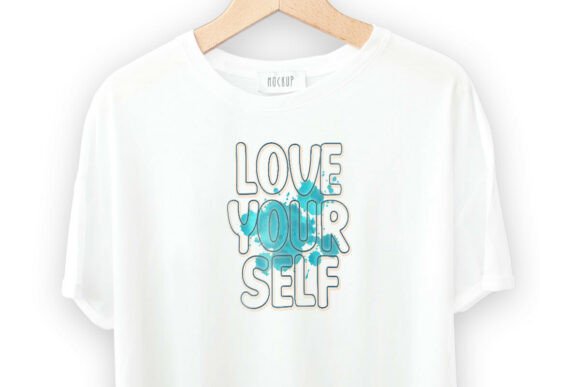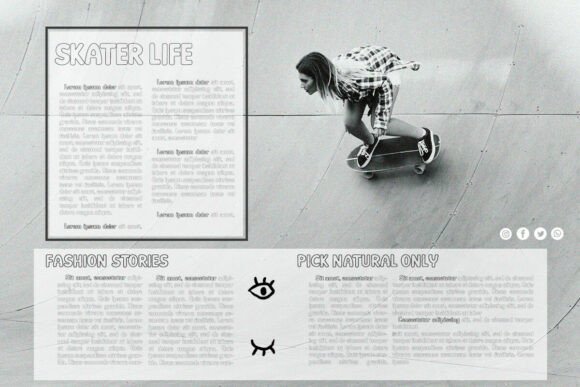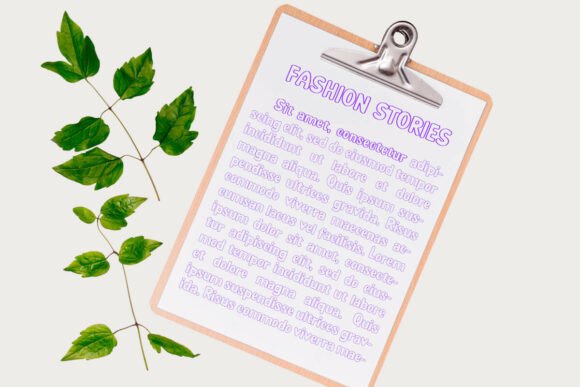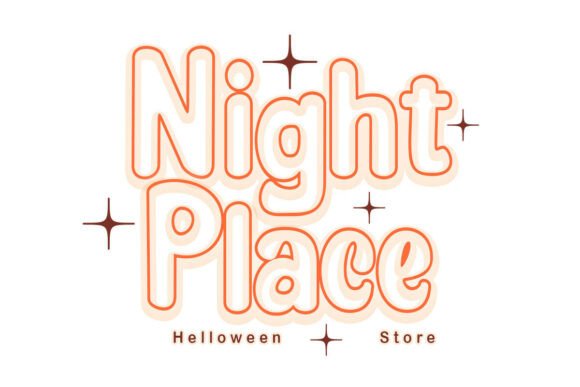
Blocky Outline is a bold, rounded display font that evokes a fun, friendly, and cheerful retro feel. Its bold, playful letterforms make it perfect for designs that want to be eye-catching, playful, and nostalgic.
Blocky Outline Font